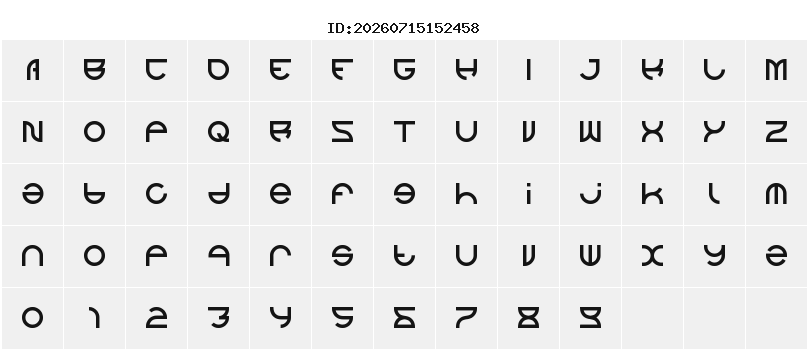
• Font Name: alexey
• Full Font Name: alexey
About alexey.ttf
alexey.ttf is a modern, elegant sans-serif font designed for ultimate readability and visual harmony. Perfect for branding, headlines, web design, and print materials.